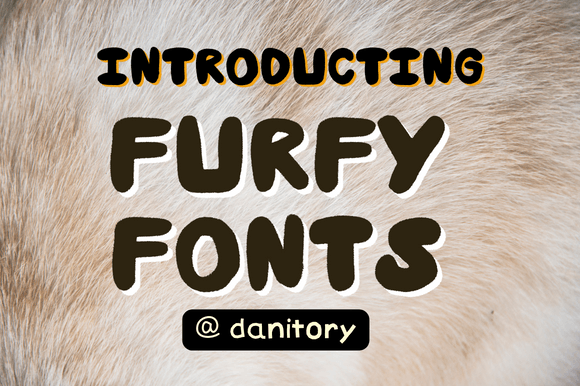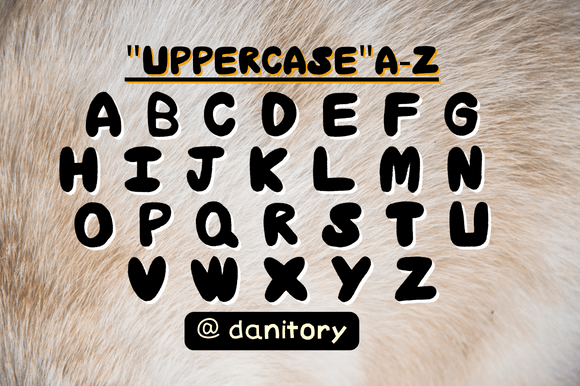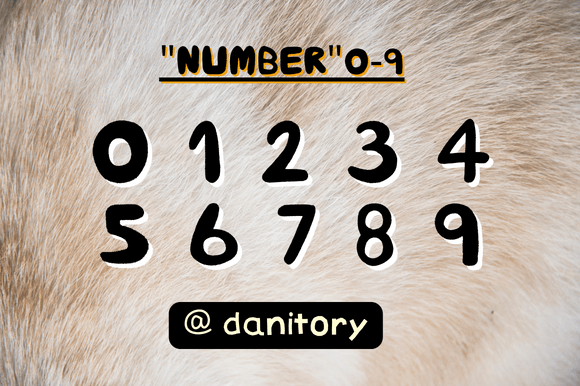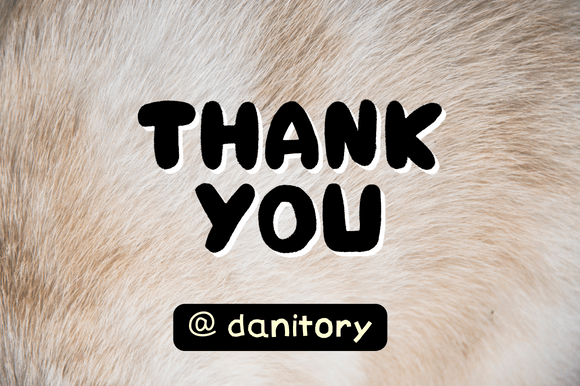
Furfy Font
Furfy Handwritten Font – Quirky and Playful Typeface
The Furfy Handwritten Font is a quirky and fun typeface that brings joy and personality to your projects. With playful strokes and a casual handwritten style, it adds a lighthearted touch to both print and digital designs. Whether you’re creating greeting cards, crafts, or presentations, this font ensures your work stands out with charm.
A Handwritten Script with Personality
The Furfy Handwritten Font combines whimsical curves with smooth lines, giving it a unique character. Its casual flow makes it approachable, while its readability ensures that it works across a wide variety of design projects. Because of this, it is equally effective for personal and professional use.
Perfect for Crafts and Greeting Cards
One of the best uses of the Furfy Handwritten Font is in greeting cards, stickers, and craft projects. Its playful details make messages feel warmer and more engaging. At the same time, it works beautifully for posters, digital designs, and even classroom materials, making it a versatile choice.
The Furfy Handwritten Font adapts effortlessly to different design needs. From branding and social media posts to product packaging and presentations, it adds a quirky handwritten charm. As a result, it is perfect for both professional designers and hobbyists.
Why Designers Love Furfy Font
Designers appreciate the Furfy Handwritten Font because it balances fun with functionality. Its quirky handwritten strokes bring originality, while its clarity ensures projects remain polished and easy to read. This makes it a go-to typeface for adding personality to creative work.
In summary, the Furfy HandwrittenFont is a quirky, playful, and versatile script typeface. With its casual handwritten strokes, quick installation, and wide usability, it is perfect for greeting cards, crafts, presentations, and digital design. Don’t miss the chance to download Furfy HandwrittenFont and bring cheerful charm to your creative projects.